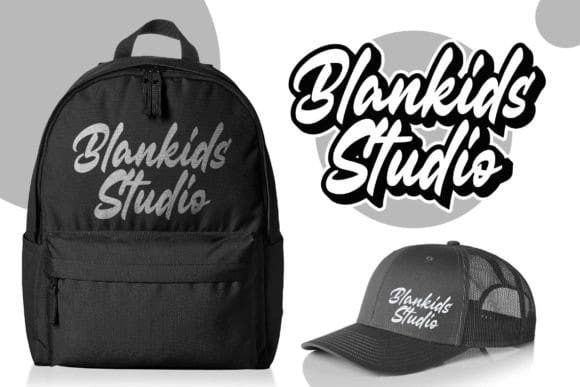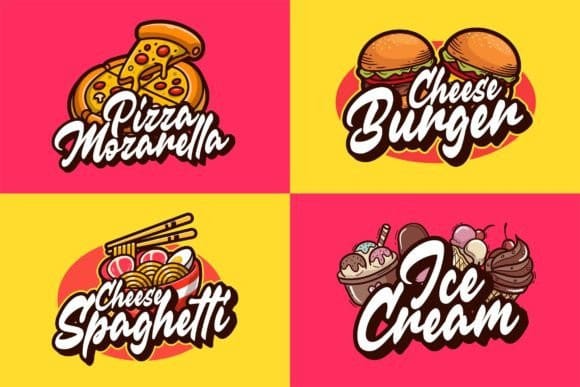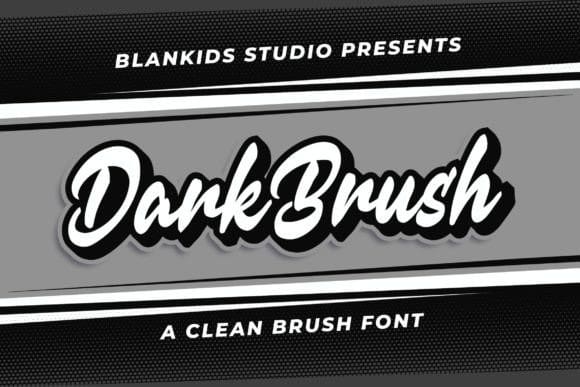
Dark Brush Font
Dark brush Font a Clean Brush Fon inspired by brush lettering-style typography. This font is perfect for a design that makes it more attractive and playful. It was made with a very good level of aesthetics, making this font suitable for a book cover, poster, packaging, merchandise, logotype, and much more.